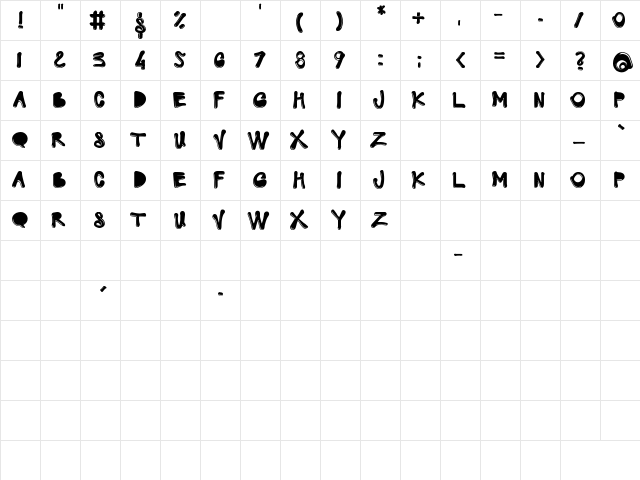
teefont Regular
Design Context for teefont Typeface
teefont is a composed and adaptable typeface that performs quietly and consistently across a wide range of design contexts.